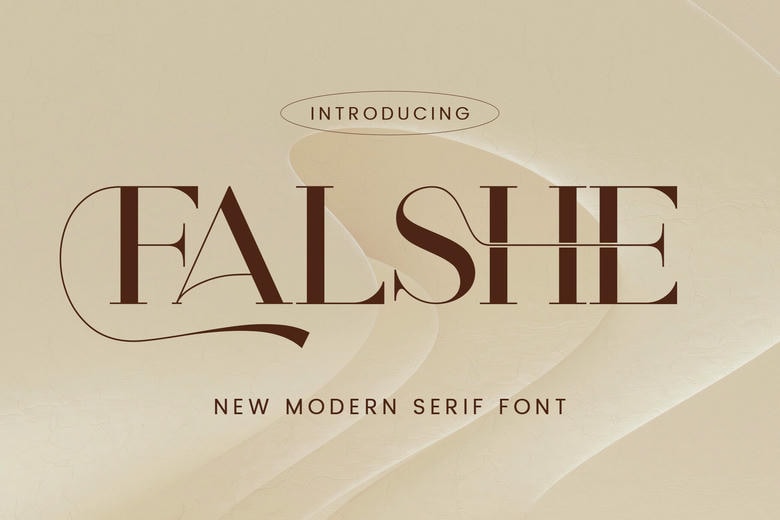
Falshe Font
The Falshe font is a stunning inquiry into the high fashion typography with thick and sharp serifs mixed with wild and sweeping swashes. This Falshe typeface is the epitome of “Quiet Luxury” and is perfect for a sophisticated appearance in editorial layouts, high-end jewelry branding and architectural portfolios.
The Falshe font has an elegant contrast between its chunky vertical bars and hairline-thin horizontals, with an eye-catching visual tension that is both modern and classical. What really makes the Falshe typeface is its intricate ligatures and flourishing alternates which give you the freedom to create your own looking typography for every single headline.
Use the Falshe font for magazine mastheads or luxury real estate logos or premium spa branding. It is best seen at large sizes in order to appreciate the precision of its strokes and the beauty of its curves. This typeface is for the designer who requires perfection and “vogue” level sophistication in each and every character.